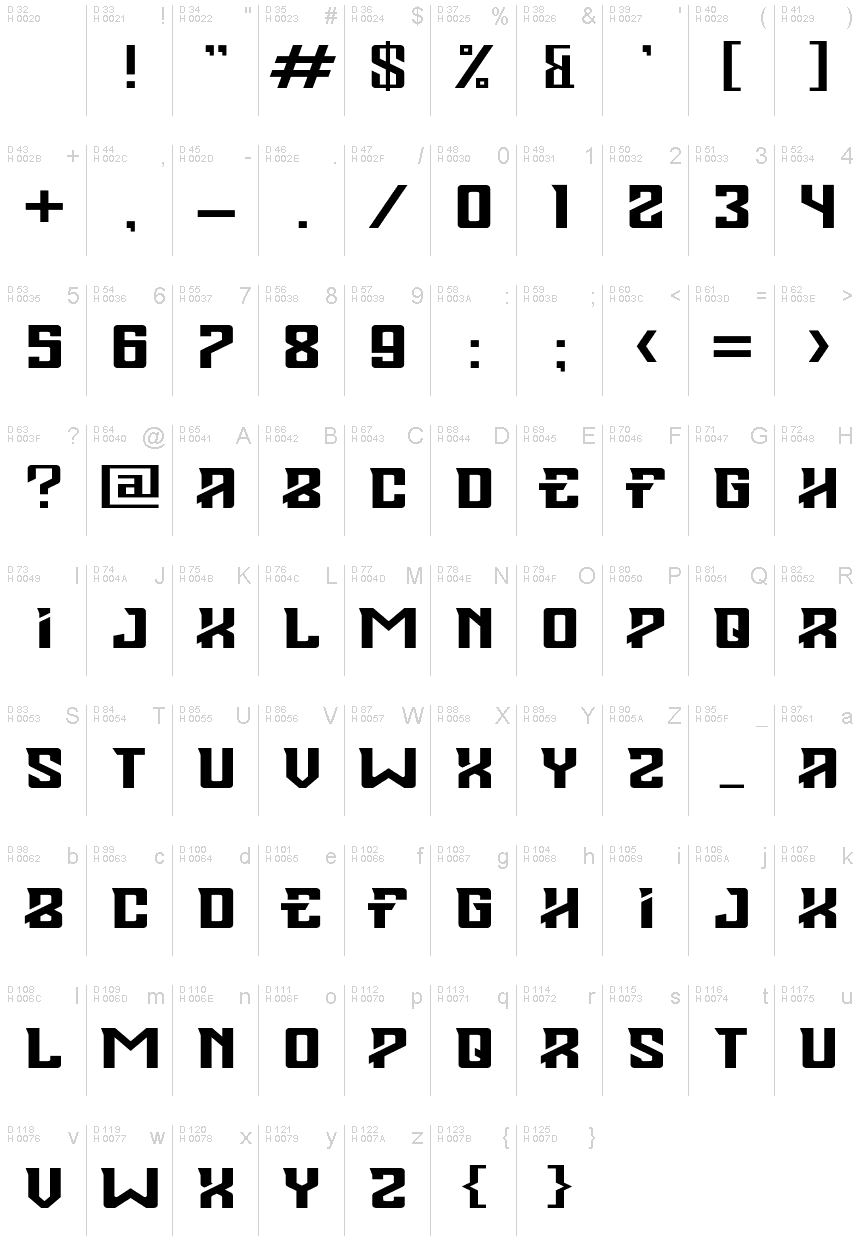
GENIS
GENIS, a bold and expanded display font by Albert Kalingga, embodies a futuristic essence. With its striking all caps design, it demands attention and adds an edgy touch to any project. Perfect for sci-fi movie posters, cutting-edge technology websites or gaming logos, GENIS stands out with its unique style. The expanded width of this font ensures maximum impact and leaves a lasting impression on viewers. Embrace the boldness of GENIS to create visually captivating designs that push the boundaries of imagination in various creative endeavors.